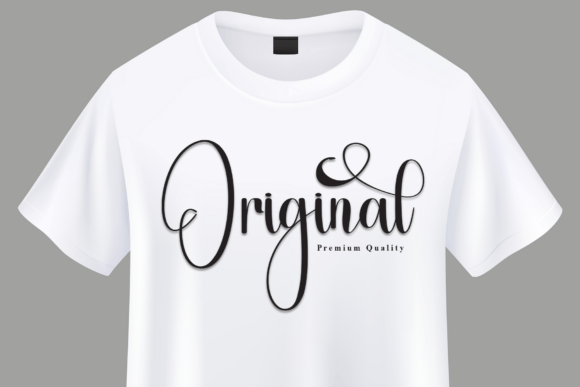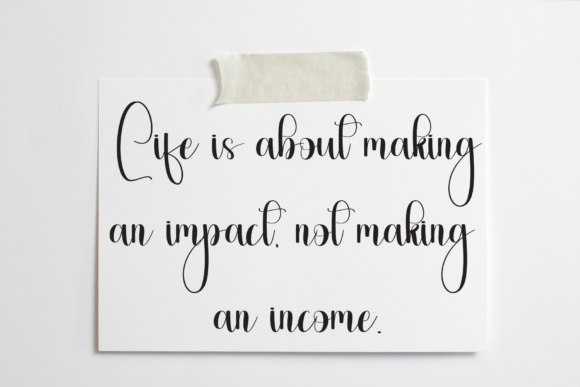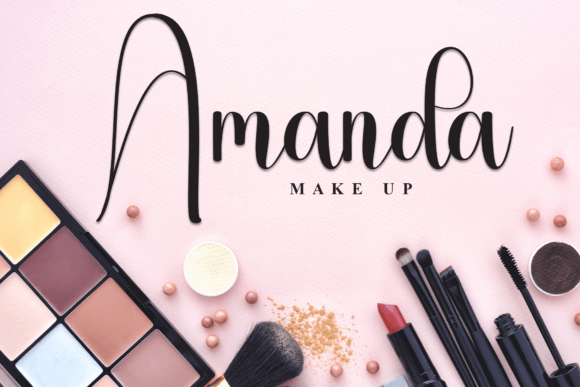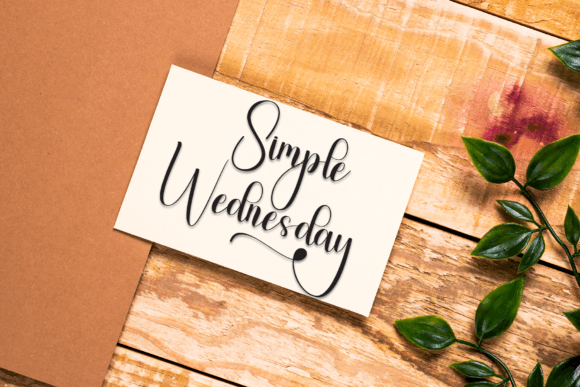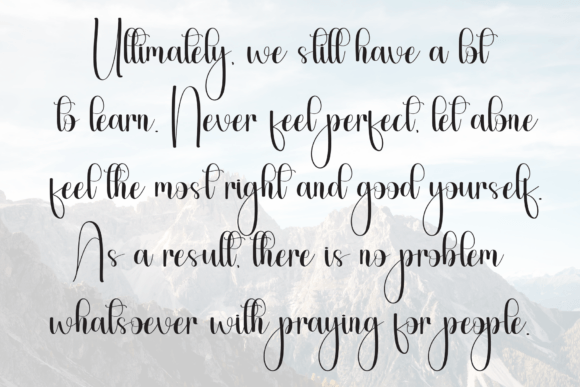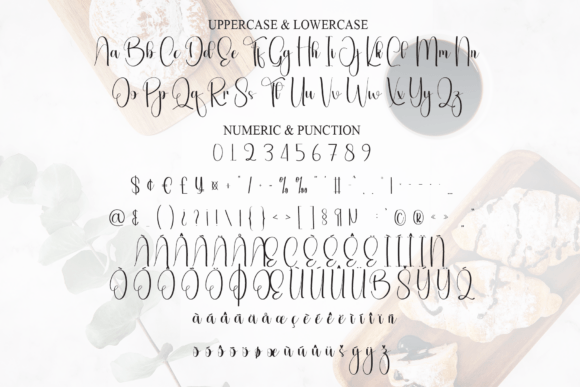
Introducing Breakday Font: Elevate Your Designs with Elegant Handwriting
Are you tired of using the same old fonts in your designs? Do you want to add a personal touch to your invitations, logos, and creative projects? Look no further than Breakday Font, a stylish script font that mimics elegant handwriting. With its smooth, flowing lines, Breakday Font is perfect for designers and crafters who want to add a touch of sophistication and creativity to their work.
The Characteristics of Breakday Font
Breakday Font is a script font that boasts a range of characteristics that make it stand out from the crowd. Its elegant handwriting style is smooth and flowing, with subtle variations in line width and fluid connections between letters. This creates a natural, organic feel that’s perfect for designs that need a personal touch.
One of the key features of Breakday Font is its versatility. It’s suitable for a wide range of design applications, from formal invitations and event branding to logos, packaging, and digital graphics. Whether you’re creating a wedding invitation or a social media graphic, Breakday Font is sure to add a touch of elegance and sophistication.
What Makes Breakday Font So Special?
So, what sets Breakday Font apart from other script fonts on the market? Here are just a few reasons why designers and crafters love working with this beautiful font:
- Elegant handwriting style: Breakday Font’s elegant handwriting style is perfect for designs that need a personal touch. Its smooth, flowing lines create a natural, organic feel that’s hard to achieve with traditional fonts.
- Versatile: Breakday Font is suitable for a wide range of design applications, from formal invitations to logos and digital graphics.
- Easy to read: Despite its elegant, cursive style, Breakday Font is surprisingly easy to read, even at small sizes.
- Unique: With its subtle variations in line width and fluid connections between letters, Breakday Font has a unique, one-of-a-kind feel that’s sure to make your designs stand out.
How to Use Breakday Font in Your Designs
Breakday Font is incredibly easy to use, even if you’re new to working with script fonts. Here are a few tips to get you started:
- Pair it with a sans-serif font: For a classic, elegant look, pair Breakday Font with a clean sans-serif font like Arial or Helvetica.
- Use it for headings and titles: Breakday Font is perfect for headings and titles, where its elegant style can really shine.
- Add some flair with swashes: Breakday Font comes with a range of swashes and flourishes that can add an extra touch of elegance to your designs.
Who Can Benefit from Using Breakday Font?
Breakday Font is perfect for a wide range of designers and crafters, including:
- Graphic designers: Whether you’re working on a logo, brochure, or social media graphic, Breakday Font is a great choice for adding a touch of elegance and sophistication.
- Stationery designers: Breakday Font is perfect for creating beautiful stationery, including invitations, greeting cards, and letterheads.
- Crafters: If you’re a crafter who loves making things like jewelry, candles, or soap, Breakday Font is a great choice for labeling your products and creating branding materials.